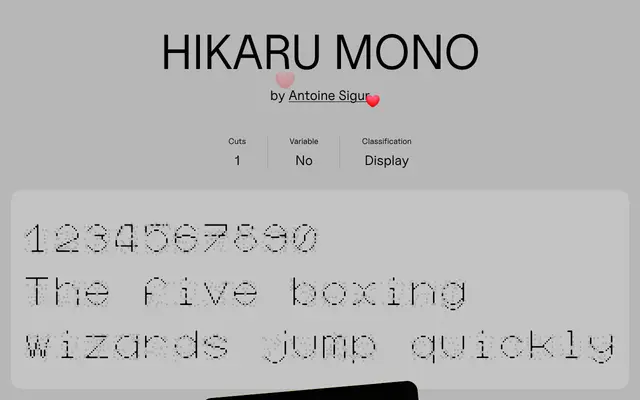
Hikaru Mono
A display typeface by Antoine Sigur distributed through Uncut with a monospaced character, released under the SIL Open Font License 1.1. It comes in one cut with no variable font support, keeping it focused and intentional rather than a broad workhorse family. Free to use commercially, with redistribution and modification permitted under the licence terms.
The foundry classifies this as Display; the name and visual character suggest a monospaced display typeface with a decorative or expressive quality.